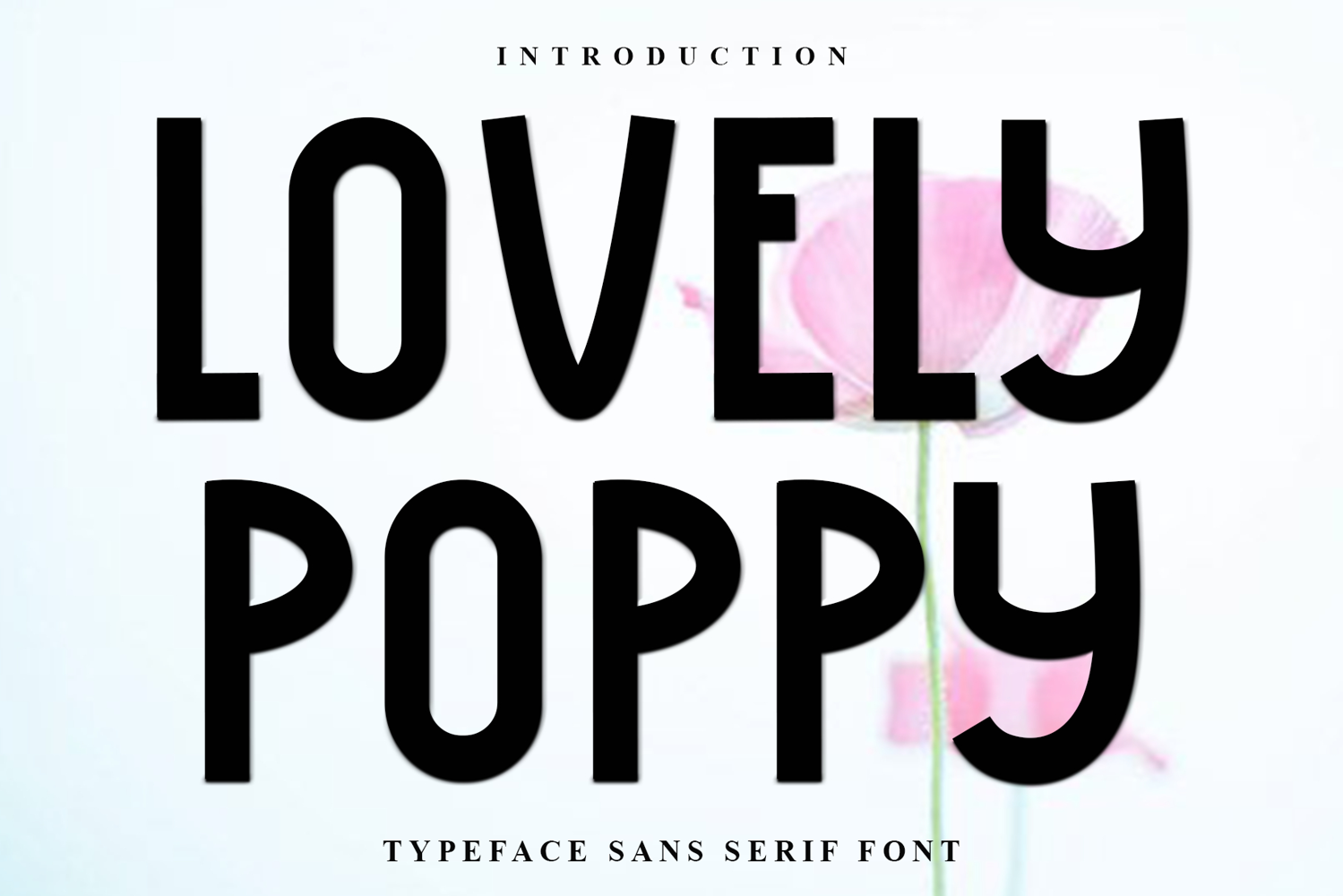
Lovely Poppy
Lovely Poppy is a beautiful and eye-catching font designed with a soft, unique touch. Its distinctive strokes give it a special character, making it meaningful and versatile for future use. With various characters, it’s perfect for design projects, crafts, and other creative works.